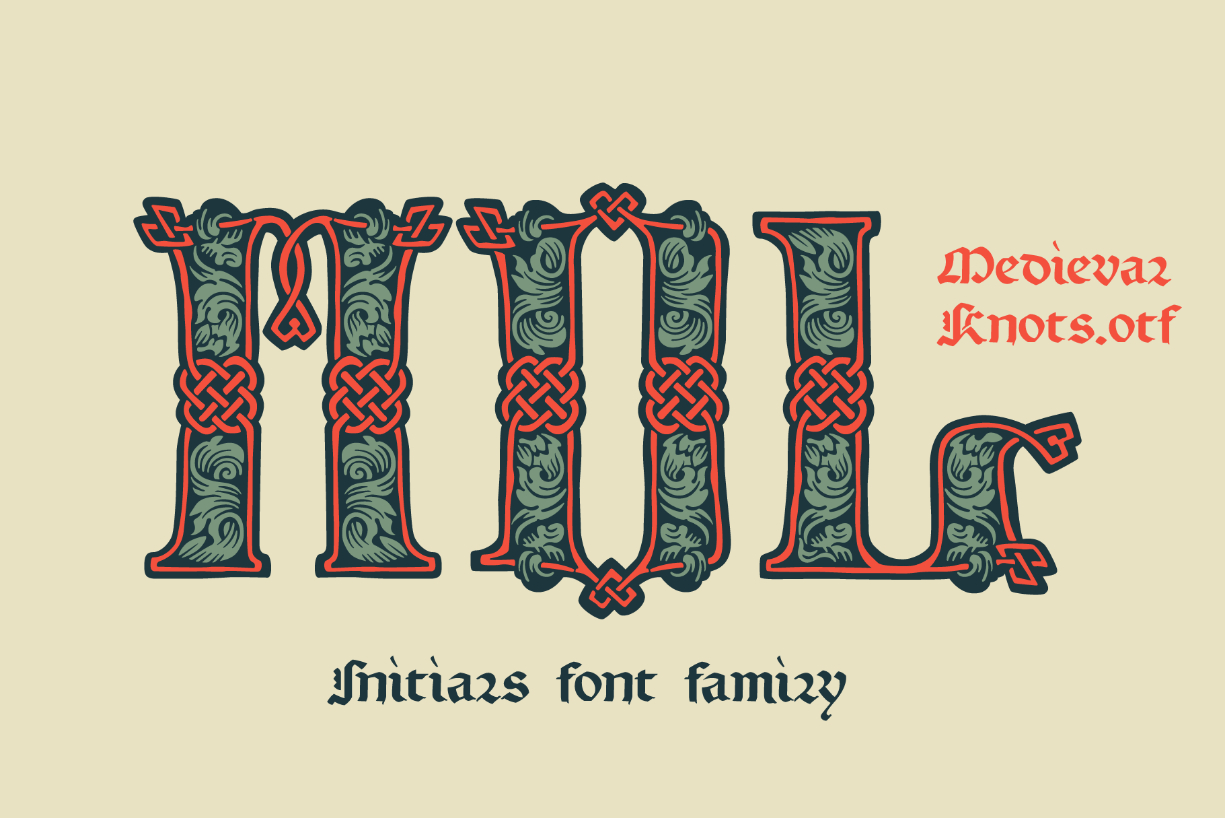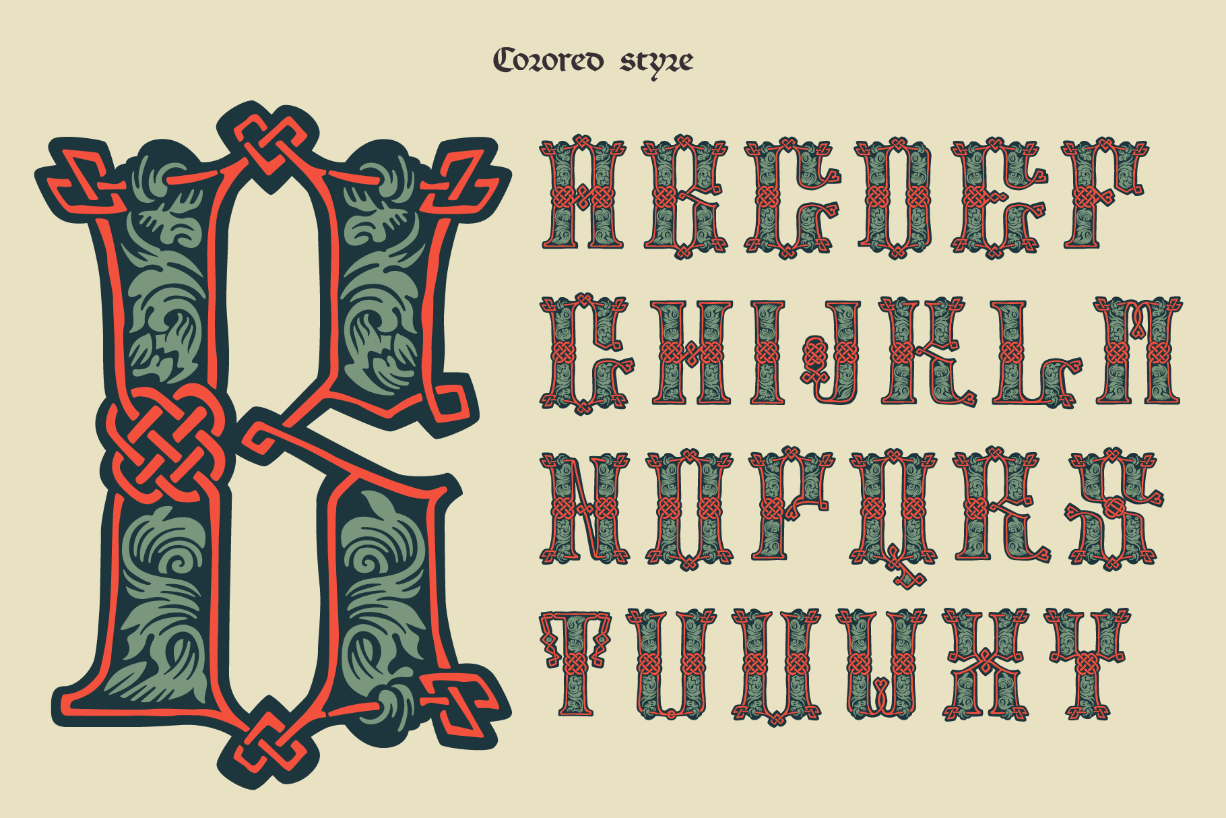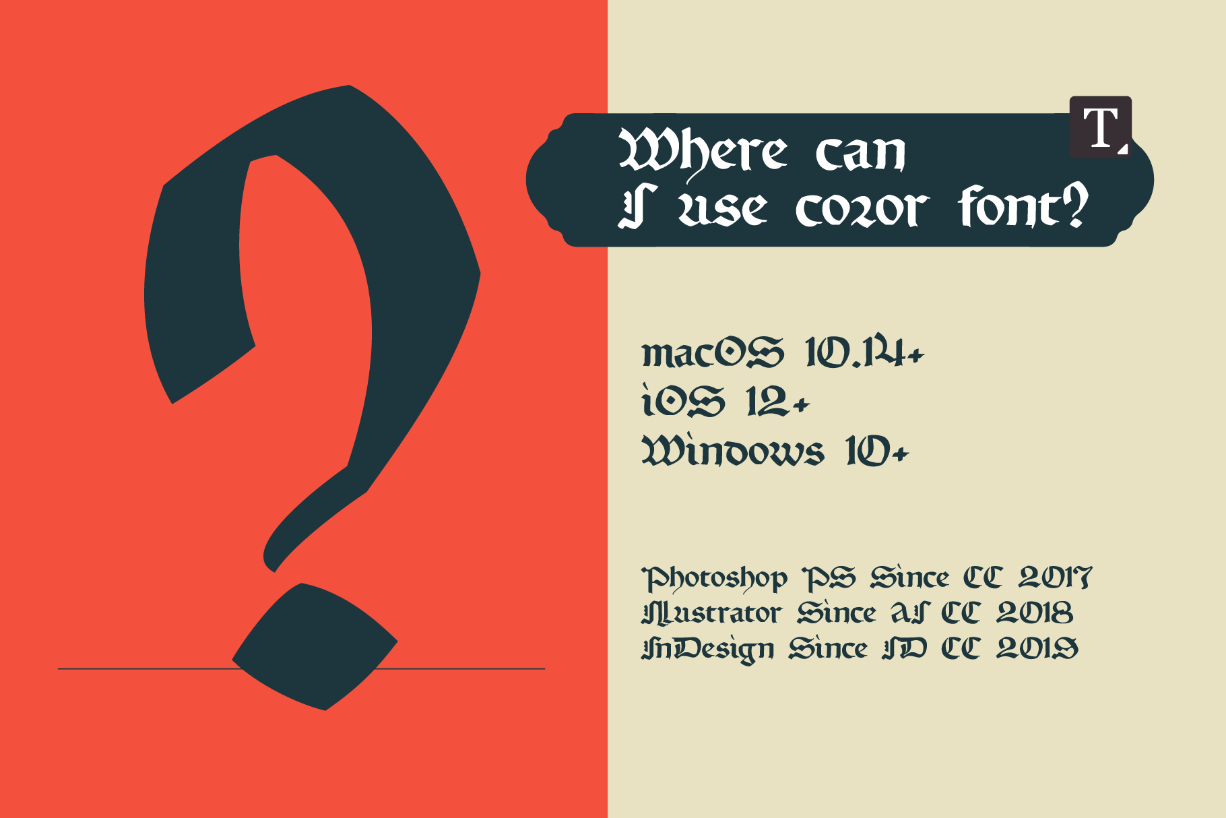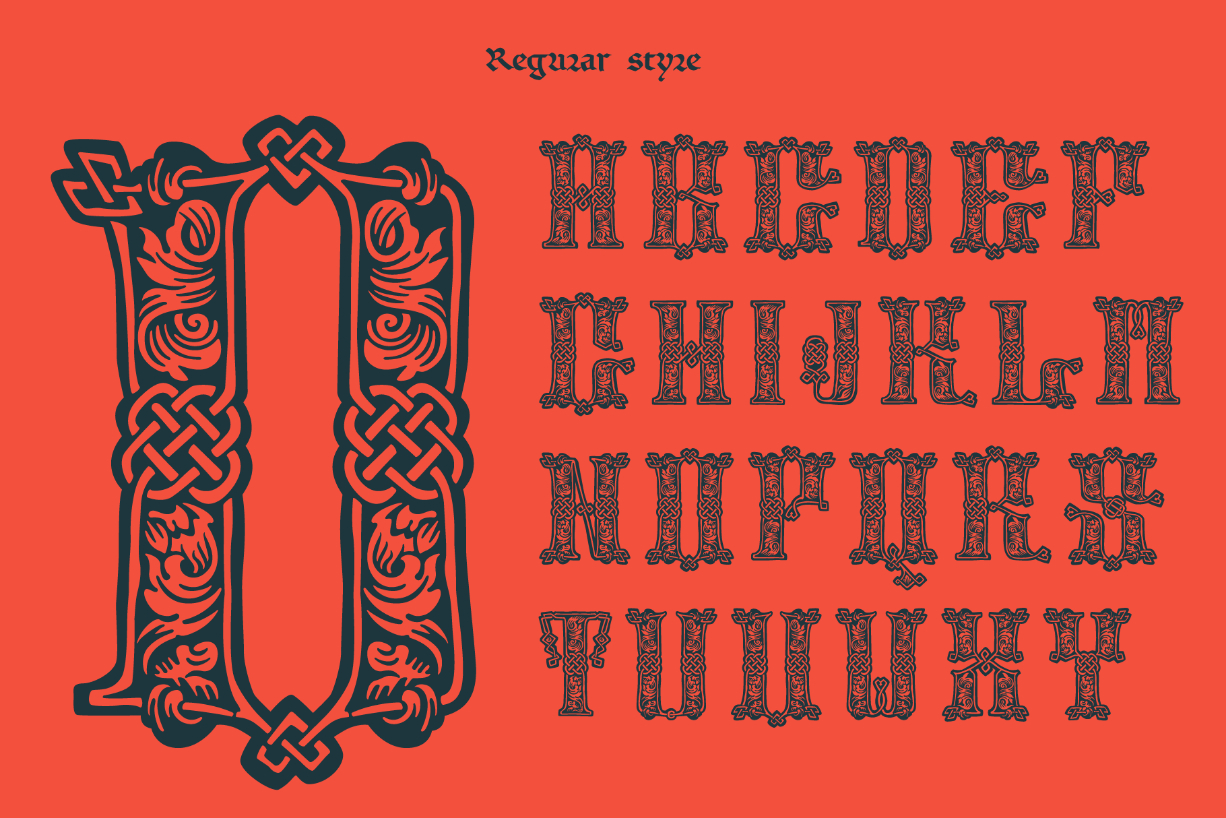
About Medieval Knots Font
Medieval Knots is an incredible blackletter font inspired by Celtic knots initials and lines. It’s all you need to precisely imitate medieval-style text. Use this font as a decorative element at the beginning of a paragraph or section, while the rest of the paragraph should be written with a regular blackletter font in order to achieve the desired effect.